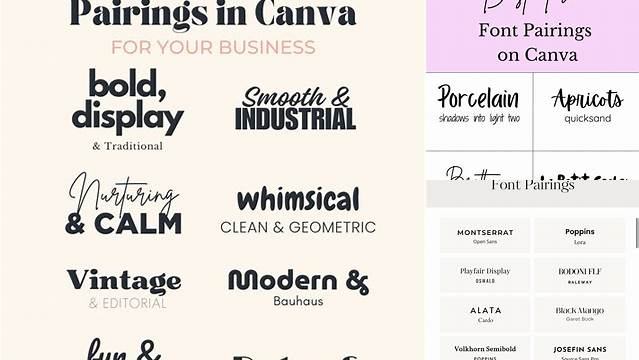
Best Canva Font Pairings: Free & Stunning!
Choosing the right font combinations in Canva can be a game-changer for your designs. Forget boring, default fonts! Let's dive into some fantastic and free Canva font combos that will make your projects pop. We’re talking about elevating your social media graphics, presentations, and even your blog visuals – all with the magic of typography. Trust me, guys, the right font pairing is like the perfect seasoning for a dish; it just brings everything together. So, buckle up, because we’re about to unlock a world of visual harmony!
1. Canva Font Combinations for Social Media
Social media is all about grabbing attention quickly, and your fonts play a huge role in that. Think about it: people are scrolling through tons of content, and you need something that stops them in their tracks. For Canva font combinations that work wonders on platforms like Instagram, Facebook, and Twitter, consider pairing a bold, eye-catching header font with a clean, readable body font. For instance, try using "Bebas Neue" for your headlines – it's tall, impactful, and screams attention. Then, pair it with something like "Open Sans" for your captions and descriptions. "Open Sans" is super versatile and easy on the eyes, ensuring your message gets across without any strain. Another killer combo? "Montserrat" for headings paired with "Raleway" for the body. Both are modern, clean, and work together seamlessly to give your social media graphics a polished and professional look. Remember, the key is readability and visual appeal. You want people to understand your message instantly and be drawn in by the overall aesthetic. With the right Canva font combinations, your social media game will be unstoppable!
2. Free Canva Fonts for Logos
Your logo is the face of your brand, and choosing the right fonts is crucial for conveying the right message. When selecting free Canva fonts for logos, you need to consider your brand's personality. Is it modern and minimalist? Or perhaps more classic and elegant? For a modern and clean logo, try pairing "Poppins" with "Lato." "Poppins" is a geometric sans-serif font that exudes simplicity and sophistication, while "Lato" offers a warm and friendly feel, making it a perfect complement. If you're aiming for something more vintage or classic, consider using "Playfair Display" for your brand name and pairing it with "Montserrat" for any taglines or supporting text. "Playfair Display" has a timeless elegance that works beautifully for brands that want to convey tradition and quality. Another great option is to use a single font family but play with different weights and styles. For example, you could use "Roboto" in bold for your brand name and "Roboto Light" for your tagline. This creates a cohesive look while still providing visual interest. Remember, your logo font should be legible, memorable, and reflective of your brand's identity. Choose wisely, guys, because this is your first impression!
3. Elegant Canva Font Pairings
For projects that need a touch of sophistication, selecting elegant Canva font pairings is key. Think wedding invitations, high-end marketing materials, or even just giving your blog a classy makeover. One of the most popular and timeless pairings is "Playfair Display" with "Montserrat." As mentioned earlier, "Playfair Display" is a beautiful serif font with a classic and refined look. Pairing it with the clean and modern sans-serif "Montserrat" creates a balanced and elegant aesthetic. Another fantastic option is to combine "Lora" with "Source Sans Pro." "Lora" is a well-balanced serif font with roots in calligraphy, making it perfect for adding a touch of artistry. "Source Sans Pro" is a highly readable and neutral sans-serif font that complements "Lora" without overpowering it. If you're looking for something a bit more unique, try pairing "Raleway" with "EB Garamond." "Raleway" is a sleek and stylish sans-serif, while "EB Garamond" is a refined serif font that adds a touch of old-world charm. When choosing elegant Canva font pairings, pay attention to the contrast between the fonts. You want them to complement each other without clashing. The goal is to create a visual hierarchy that is both beautiful and easy to read. Trust me, the right fonts can transform your project from ordinary to extraordinary!
4. Best Font Combinations for Presentations
Creating engaging presentations requires careful consideration of font choices. After all, you want your audience to focus on your message, not struggle to read your slides! For the best font combinations for presentations, prioritize readability and clarity. A great starting point is pairing "Roboto" with "Roboto Slab." "Roboto" is a clean and modern sans-serif font that works well for body text, while "Roboto Slab" provides a more defined and authoritative look for headings. This combination is highly legible and professional, making it ideal for business presentations. Another excellent option is to use "Open Sans" for body text and "Montserrat" for headings. "Open Sans" is known for its readability on screens, and "Montserrat" adds a touch of visual interest without being distracting. For a more creative presentation, try pairing "Lato" with "Merriweather." "Lato" is a friendly and approachable sans-serif, while "Merriweather" is a robust serif font that adds a touch of personality. When selecting the best font combinations for presentations, remember to keep it simple and consistent. Use a maximum of two fonts to avoid overwhelming your audience. Also, ensure that your font sizes are large enough to be easily read from the back of the room. With the right fonts, your presentations will be both informative and visually appealing!
5. Canva Font Pairing for Beginners
If you're just starting out with design, choosing the right fonts can feel overwhelming. But don't worry, guys, it doesn't have to be! Canva makes it easy to find Canva font pairings for beginners that look great together. One of the simplest and most effective combinations is "Open Sans" with "Open Sans Bold." Using the same font family but varying the weight is a foolproof way to create a cohesive look. "Open Sans" is incredibly versatile and readable, making it a great choice for both headings and body text. Another beginner-friendly option is to pair "Roboto" with "Roboto Medium." Similar to "Open Sans," "Roboto" is a clean and modern sans-serif font that works well in a variety of contexts. By using different weights, you can create visual hierarchy without having to worry about clashing fonts. If you want to experiment with a serif font, try pairing "Lora" with "Open Sans." "Lora" adds a touch of elegance, while "Open Sans" keeps things clean and readable. When choosing Canva font pairings for beginners, the key is to start simple and experiment with different combinations until you find something that you like. Don't be afraid to try new things, and remember that readability is always the most important factor. With a little practice, you'll be creating beautiful designs in no time!